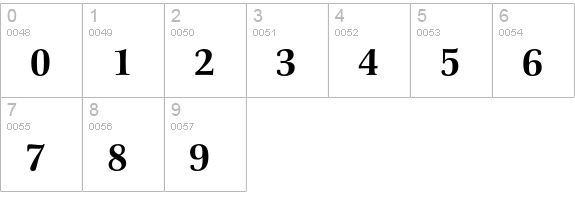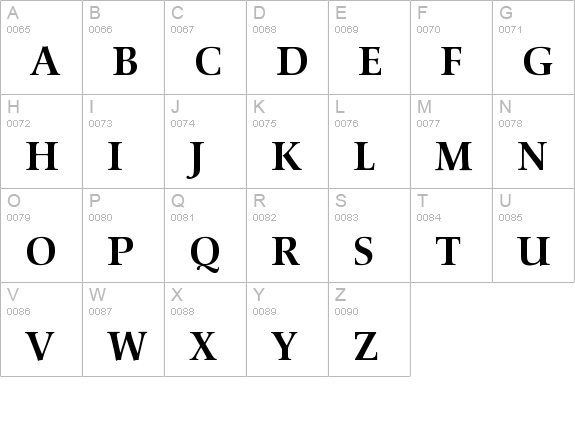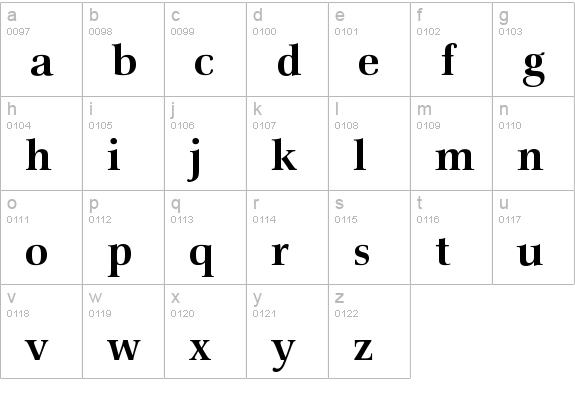
Schneider-Antiqua Medium is a balanced, medium-weight variant in the Schneider typeface family \xE2\x80\x94 well suited to sub-headlines, navigation, and balanced editorial work.
Schneider-Antiqua Medium is a classic and elegant font that exudes sophistication and refinement. With its timeless appeal, this font is perfect for adding a touch of elegance to any project. The medium weight strikes the perfect balance between boldness and subtlety, making it versatile for various design applications. Crafted with meticulous attention to detail, Schneider-Antiqua Medium boasts clean lines and intricate letterforms that are visually pleasing to the eye. Its legibility is exceptional, making it an ideal choice for both print and digital media. One of the most remarkable features of Schneider-Antiqua Medium is that it is freely available to download at FontsMarket.com. This means that designers and creatives can enjoy the benefits of this exquisite font without any cost. Its availability for free adds tremendous value, making it accessible to a wide range of users. Whether you are working on a branding project, editorial design, or even creating invitations for a special occasion, Schneider-Antiqua Medium is a reliable and versatile font that will elevate your work to new heights. Embrace the timeless beauty and effortless sophistication of Schneider-Antiqua Medium, and let your creativity shine. Download it for free at FontsMarket.com and explore the endless possibilities it offers for your next design endeavor.